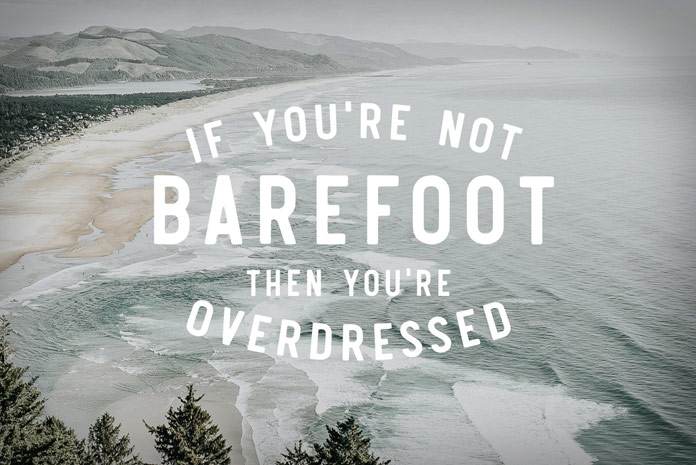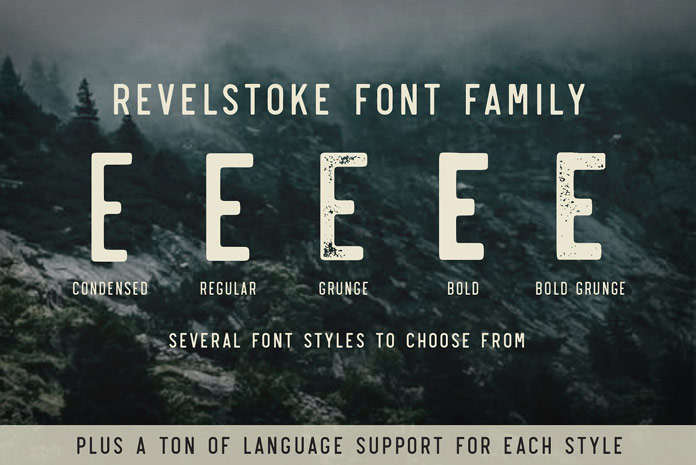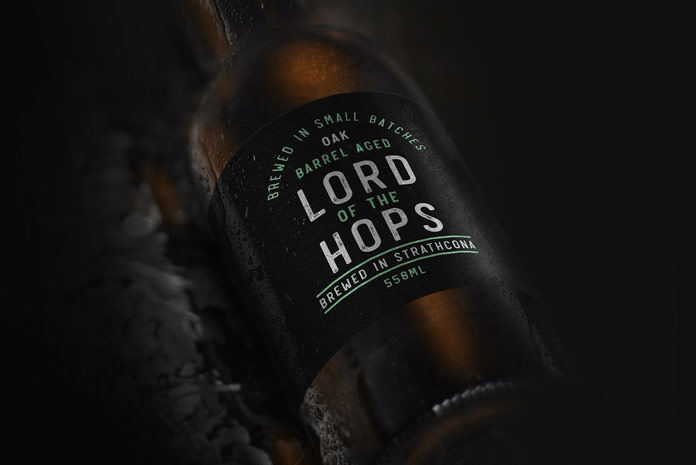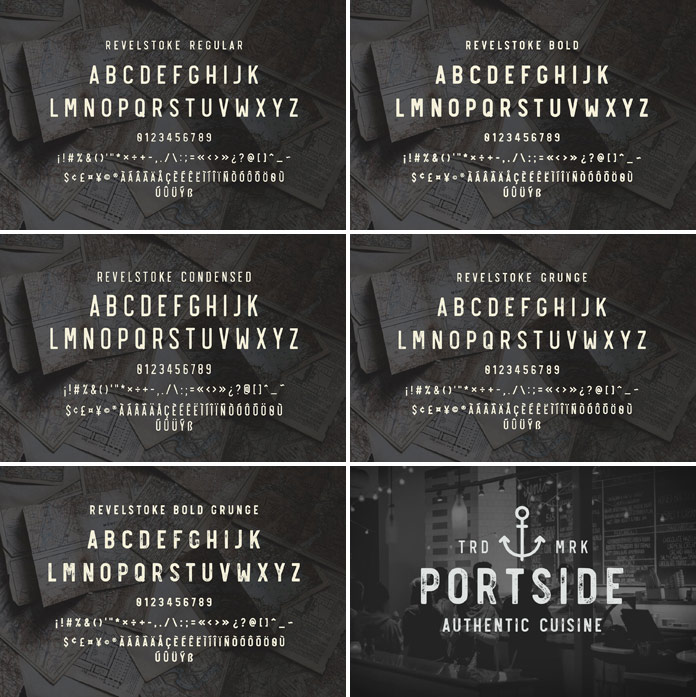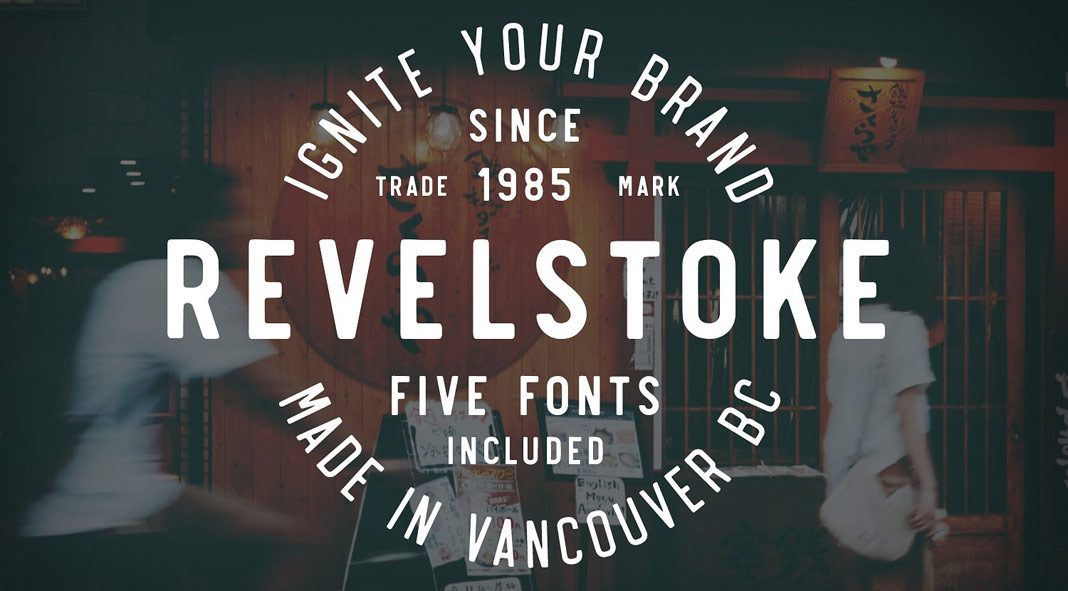
The Revelstoke font family, a vintage-inspired display typeface in 5 styles.
Created and published by Canadian art director, and graphic and type designer Greg Nicholls, the Revelstoke font family is based on an uppercase display typeface with an authentic vintage print look. Included in 5 styles: Regular, Condensed, Bold, Grunge, and Bold Grunge, this family of five is extremely versatile on its own. With rounded edges and intended imperfections, the typeface offers a nice old school printed look and feel. The textured grunge versions have been designed to give you the possibility to add an even more worn look to your typographic work. This uppercase display type family comes with an extensive set of characters to support multiple languages. Revelstoke is a great choice for striking titles or as the secondary font to go along with existing logos and brand identities. For additional information on all features, just follow the link below.